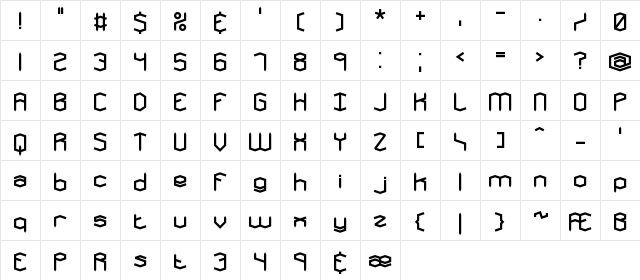
Mysterons BRK Normal
| Foundry | ƎIGMA FONTS |
| Designer | ƎIGMA FONTS - Brian Kent |
Design Context for Mysterons BRK Typeface
Mysterons BRK takes a measured approach to typography — its balanced proportions and neutral character make it a reliable workhorse for both digital and print work.